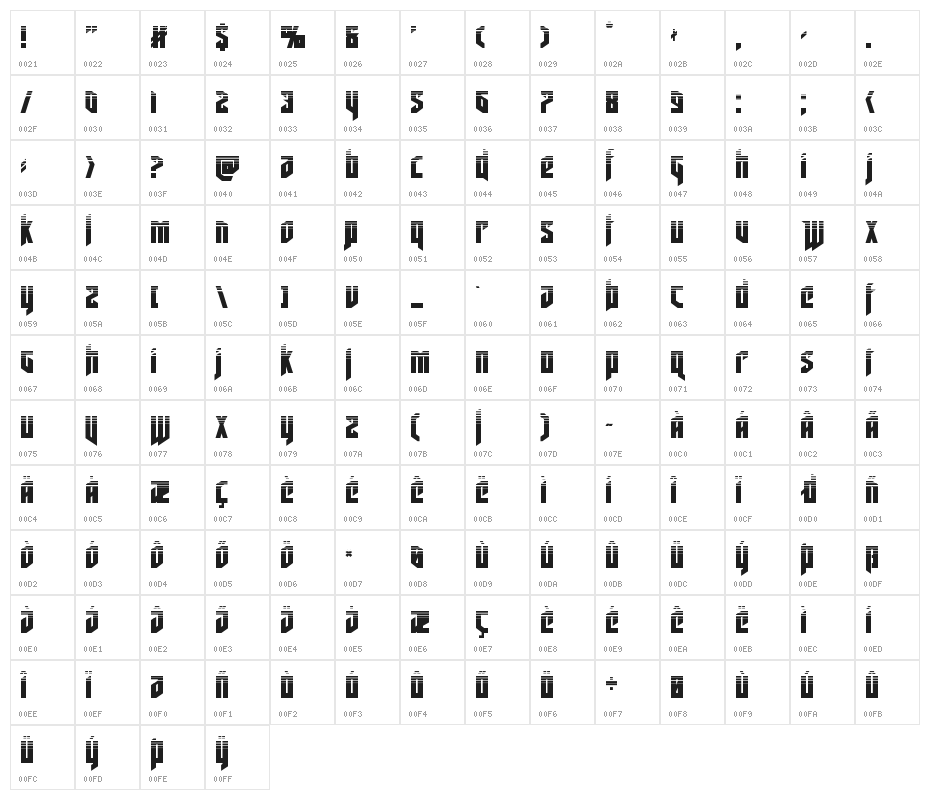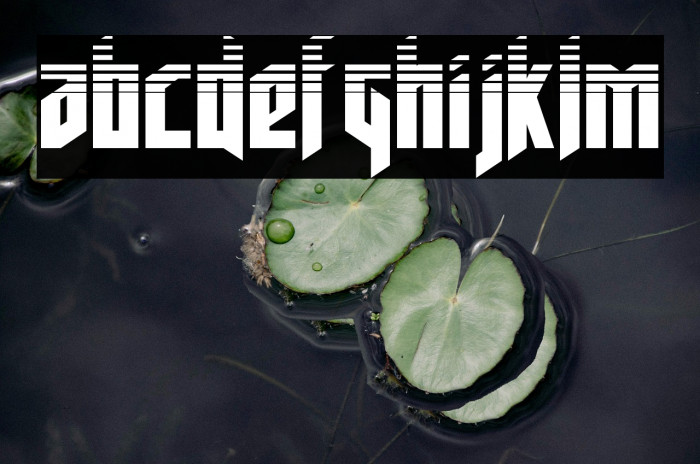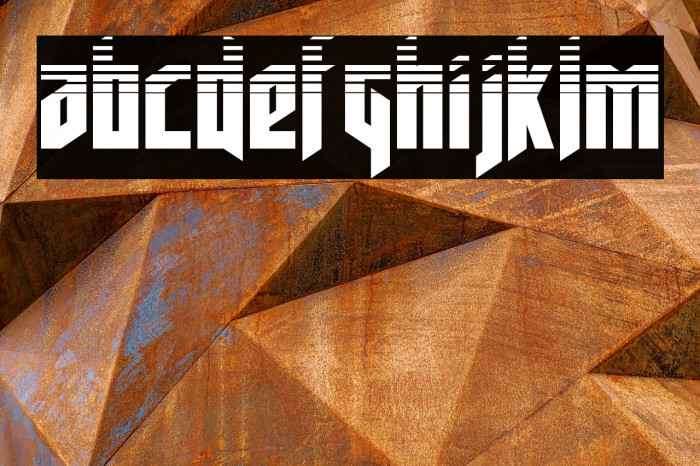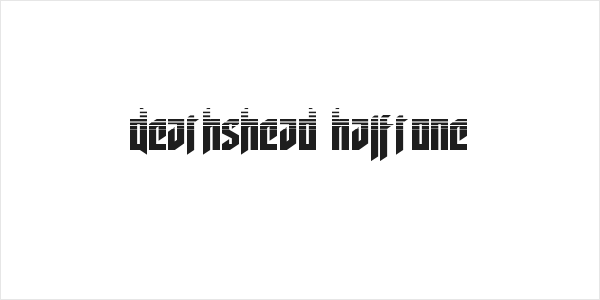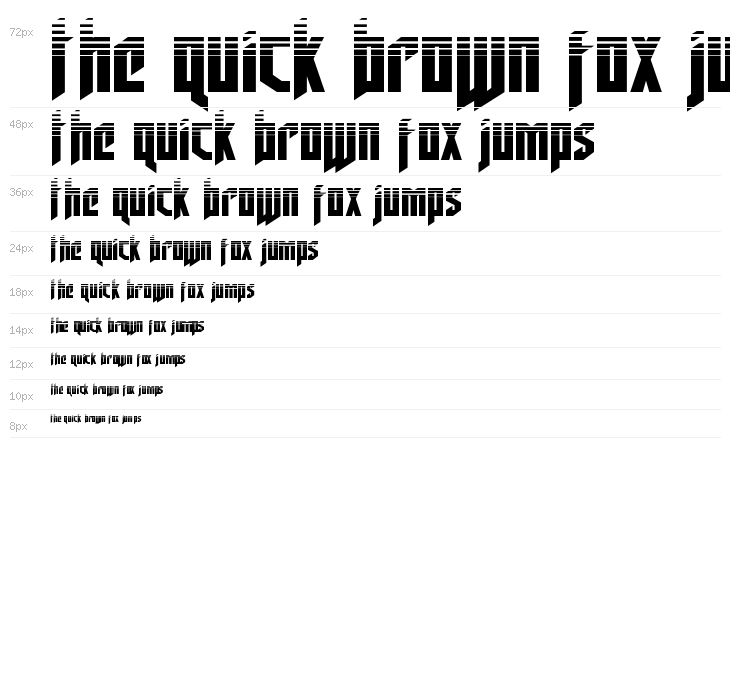
Deathshead Halftone Font
Deathshead Halftone Description
This font features a bold, geometric design with a distinct halftone effect, creating a striking visual impact. The characters are constructed with sharp angles and a blocky appearance, giving it a futuristic and edgy feel. The uppercase and lowercase letters maintain a consistent style, with the halftone lines adding texture and depth. Numbers and special characters follow the same design principles, ensuring uniformity across all glyphs. The font's unique style makes it ideal for projects that require a modern and unconventional look.
| Proposed Projects | Ideal for branding, posters, album covers, and any project needing a futuristic touch. |